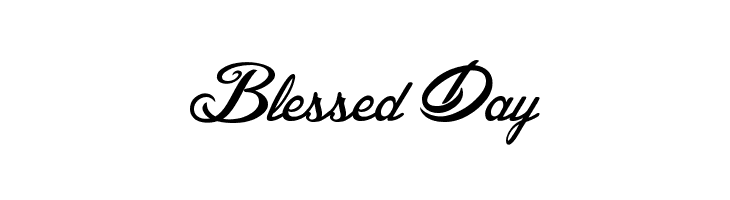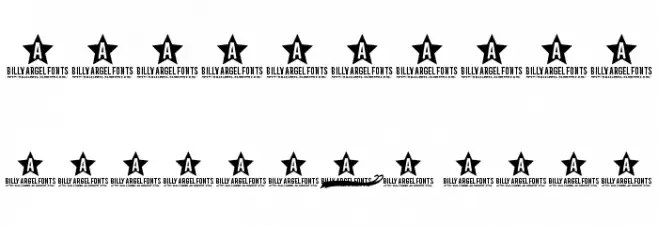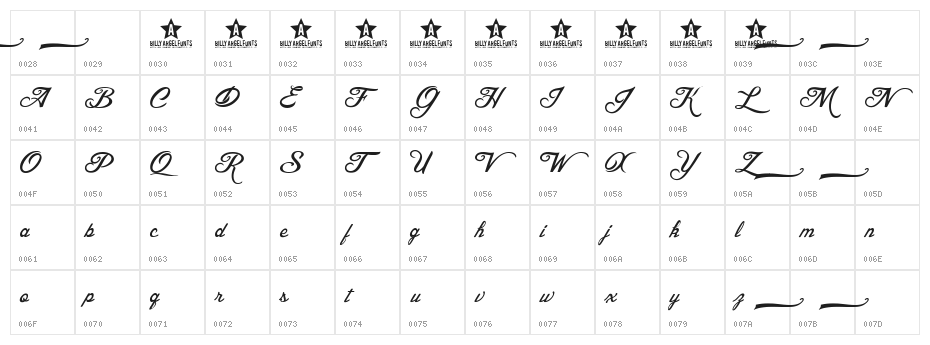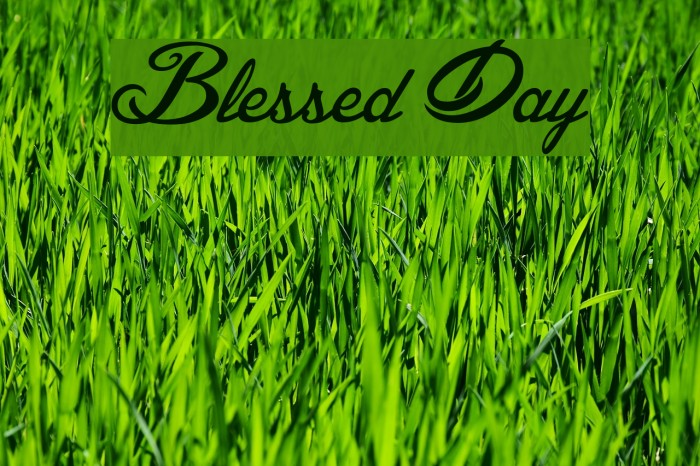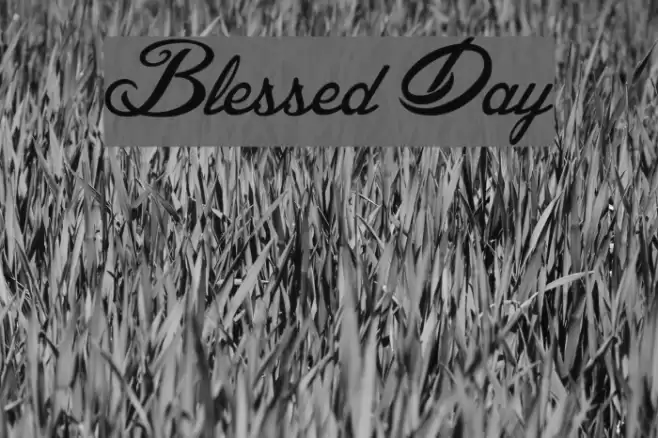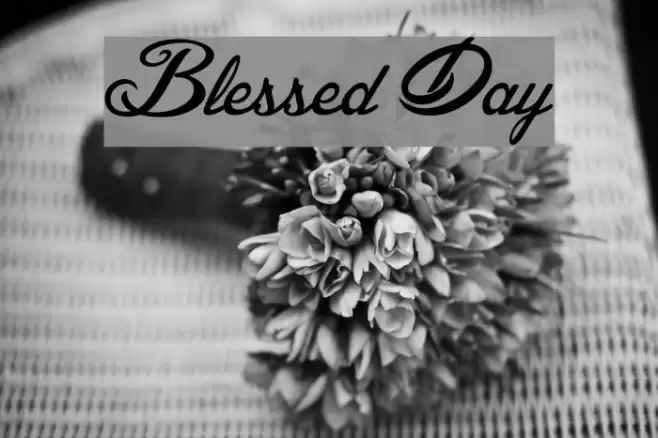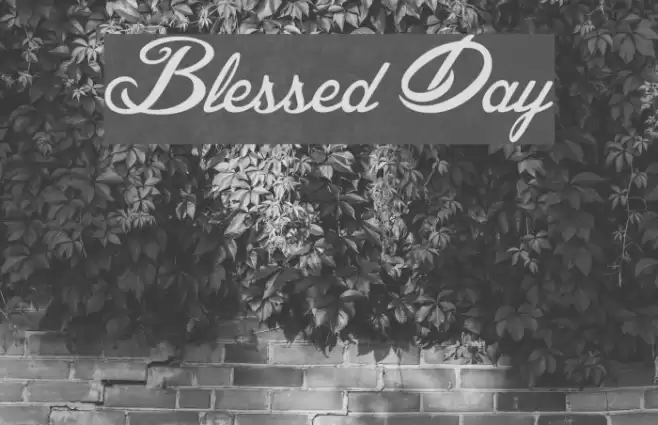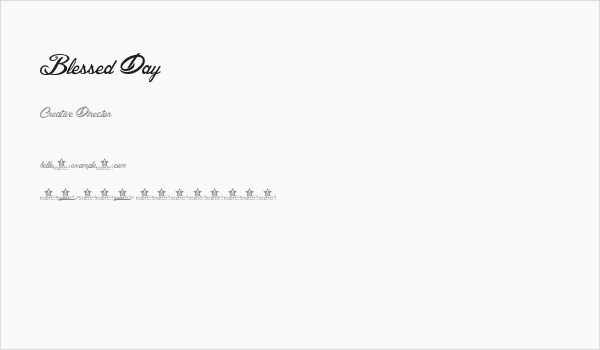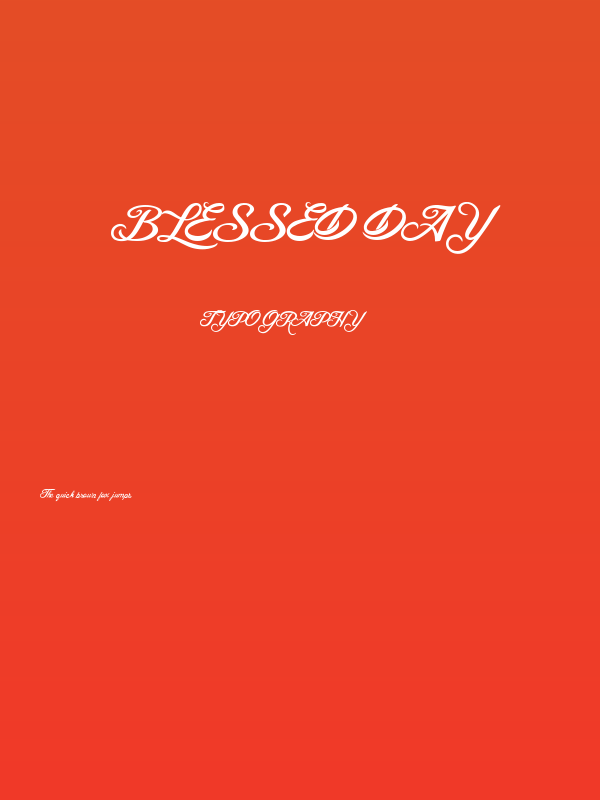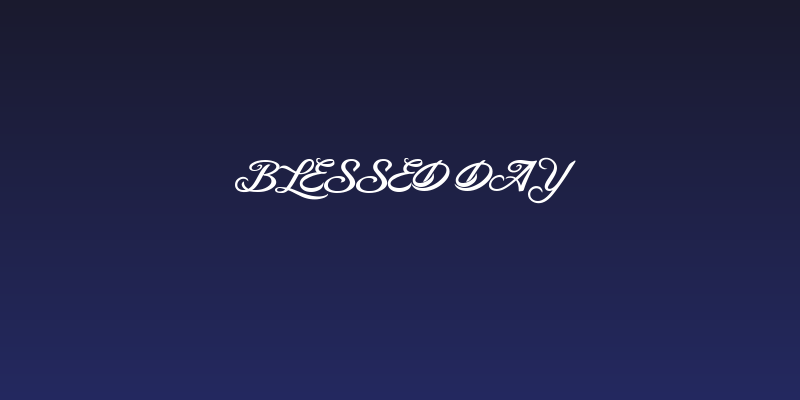
Blessed Day Font
Blessed Day Description
This font features an elegant script style with flowing, cursive letterforms. The uppercase letters are ornate, with intricate swirls and flourishes that add a touch of sophistication. The lowercase letters maintain a consistent slant, enhancing the fluidity and grace of the text. The overall design is reminiscent of classic calligraphy, making it suitable for formal and decorative applications. The characters are well-spaced, allowing for readability while maintaining the artistic flair. This font is ideal for projects that require a touch of elegance and refinement.
| Proposed Projects | Wedding invitations, greeting cards, luxury branding, and elegant signage. |